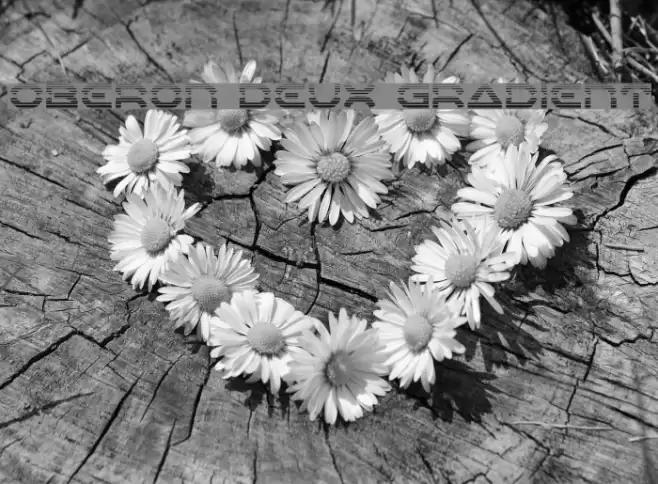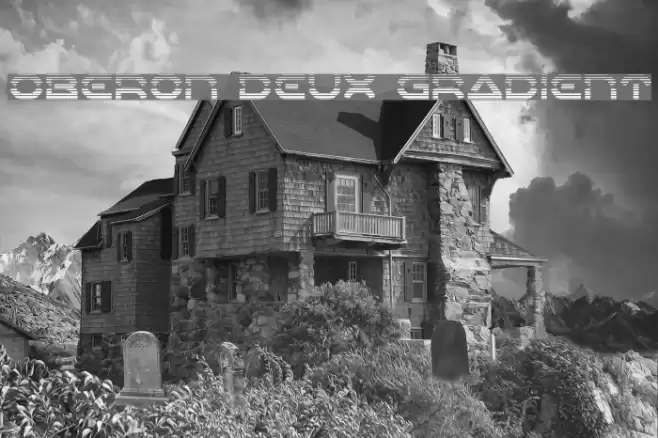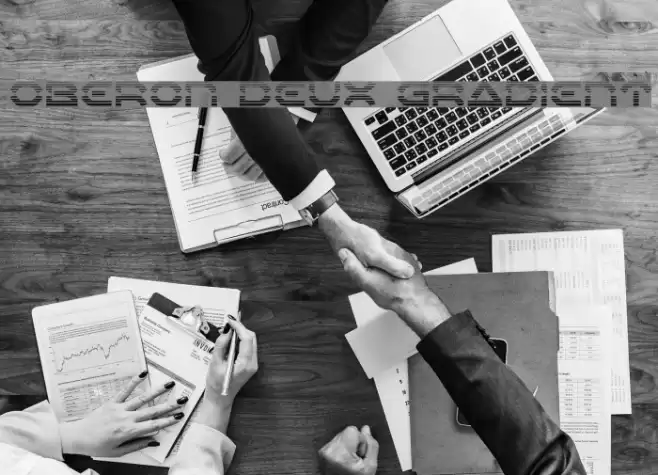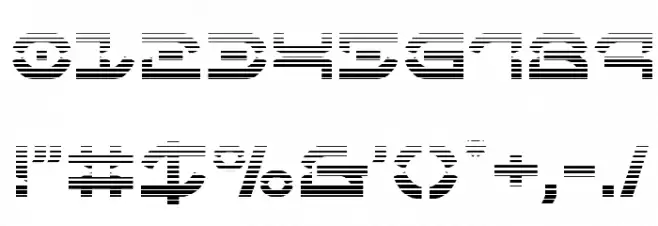
Oberon Deux Gradient Font
Oberon Deux Gradient Description
This font features a futuristic and geometric design with a distinct striped pattern running horizontally through each character. The uppercase and lowercase letters maintain a consistent style, emphasizing sharp angles and clean lines. The numerals and special characters follow the same aesthetic, ensuring uniformity across all glyphs. The font's unique gradient-like appearance is achieved through the use of parallel lines, giving it a dynamic and modern feel. This design is particularly eye-catching and suitable for projects that require a bold and innovative look.
A futuristic, geometric font with a striped, gradient-like design from Sci-fi fonts.
- Proposed Projects: Ideal for sci-fi themed designs, technology branding, modern posters, and digital artwork.
- Contrast: High